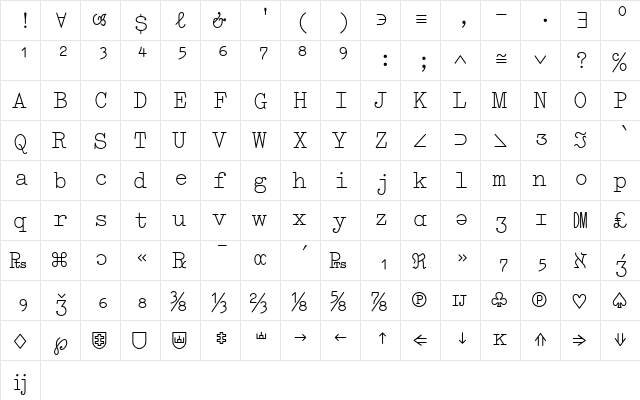
Elementa Symbol Regular
Design Context for Elementa Symbol Typeface
Elementa Symbol takes a measured approach to typography — its balanced proportions and neutral character make it a reliable workhorse for both digital and print work.